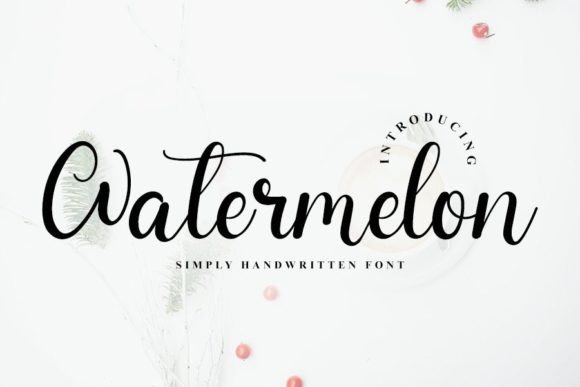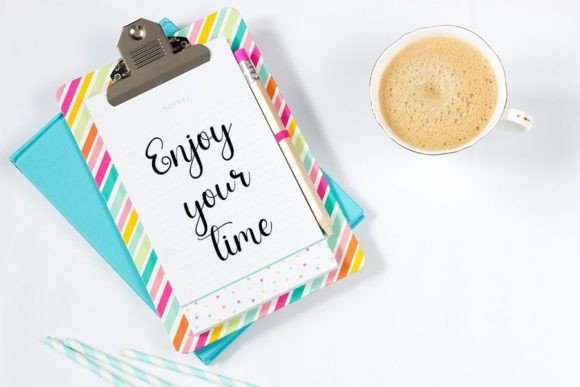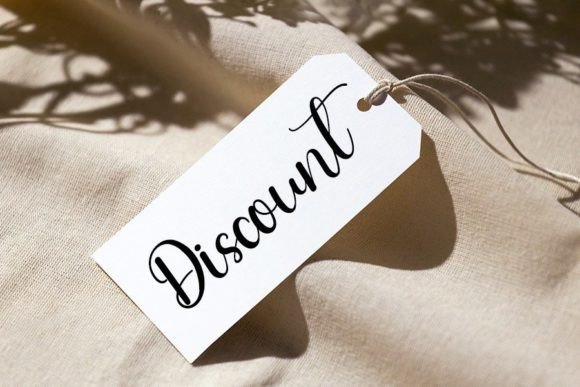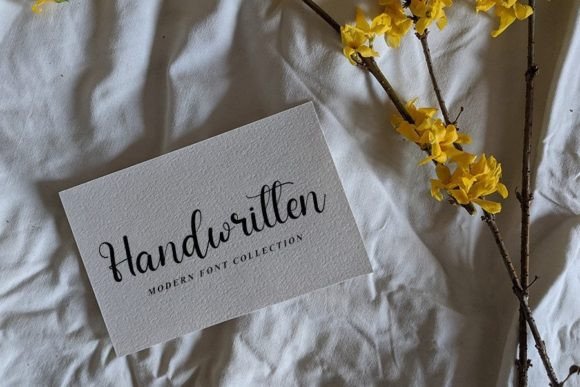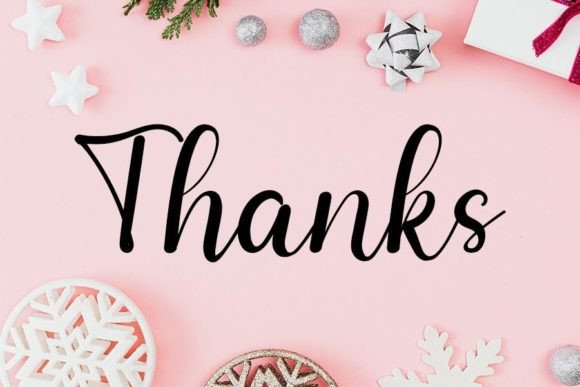
Watermelon Font
About Watermelon Font
Watermelon is a neat and beautiful handwritten font characterized by an elegant touch, making it a perfect choice for your favorite projects. With its distinct and timeless style, Watermelon is designed to add a touch of sophistication to your creative endeavors, allowing you to craft spectacular designs that stand out.
The neat and beautiful characteristics of Watermelon are evident in its refined letterforms. The font exudes a sense of orderliness, creating a clean and polished appearance that is versatile and adaptable to various design applications. This makes Watermelon well-suited for a wide range of projects where an elegant touch is desired.
The elegant touch of Watermelon adds a layer of sophistication to your designs. Whether you’re working on branding projects, product packaging, invitations, or any other creative endeavor, the font’s timeless style ensures that your designs will remain visually appealing and relevant.
Fall in love with Watermelon’s distinctive charm, and let it be the font that enhances the visual appeal of your projects. From logos to spectacular designs, Watermelon’s neat and beautiful handwritten style provides a versatile and classic foundation for a wide array of creative applications. Incorporate Watermelon into your design toolkit and witness how it brings a touch of elegance to your favorite projects.